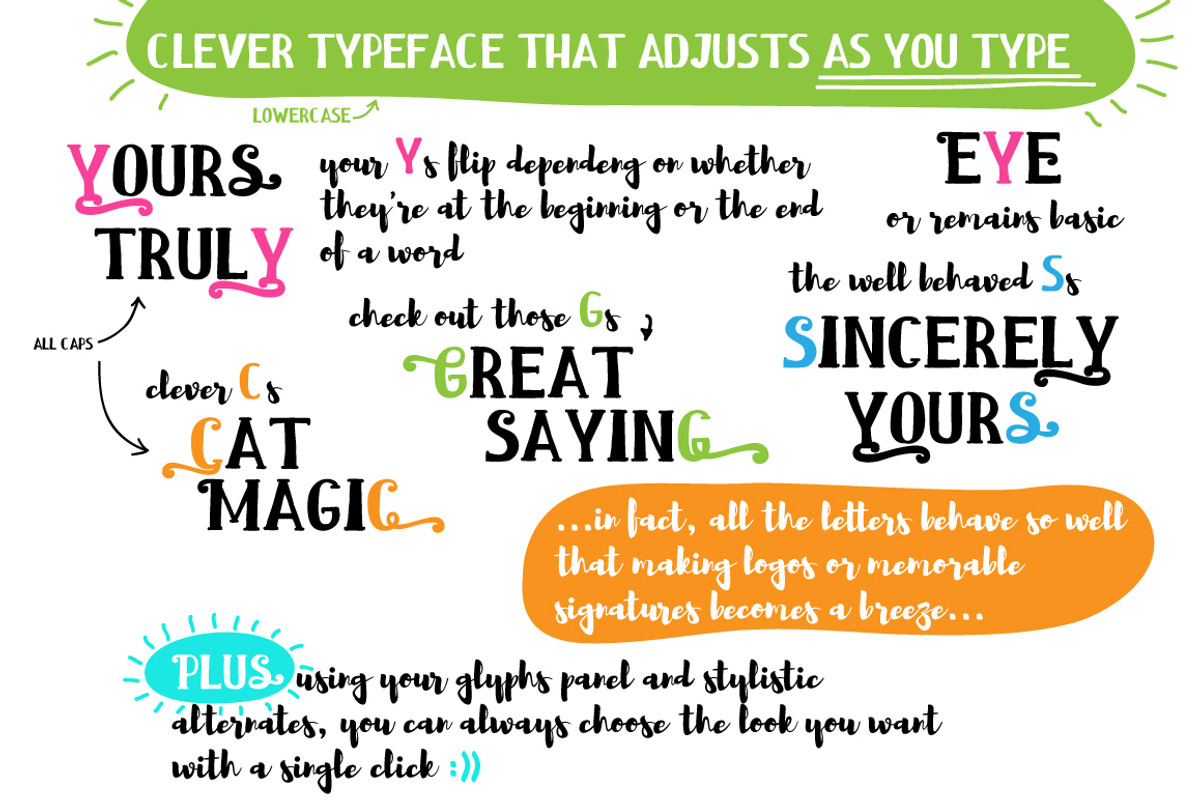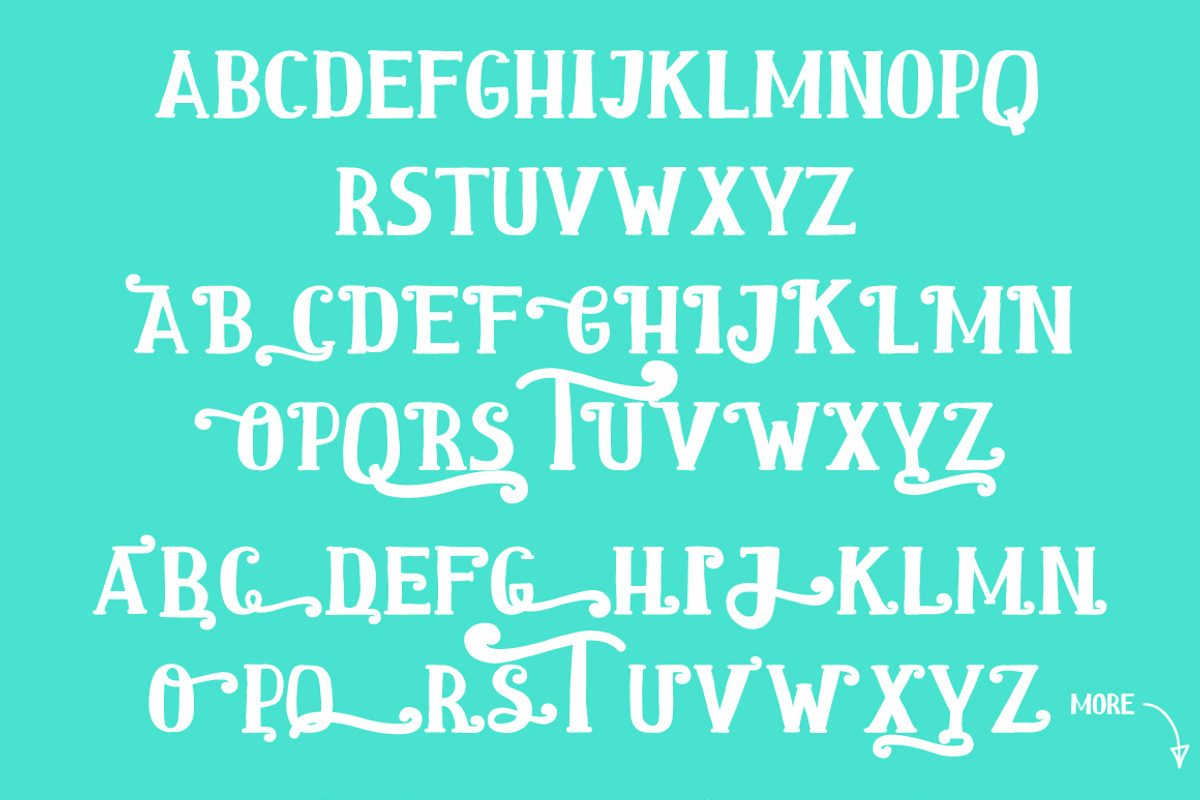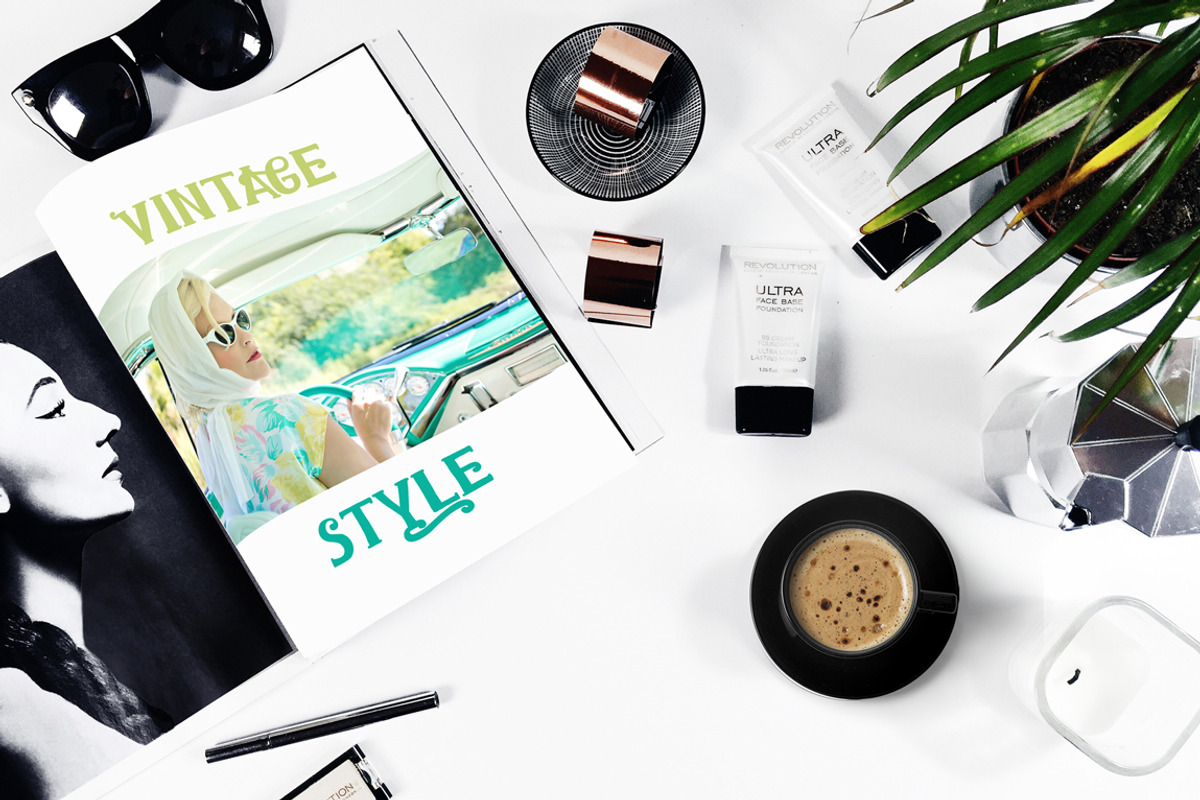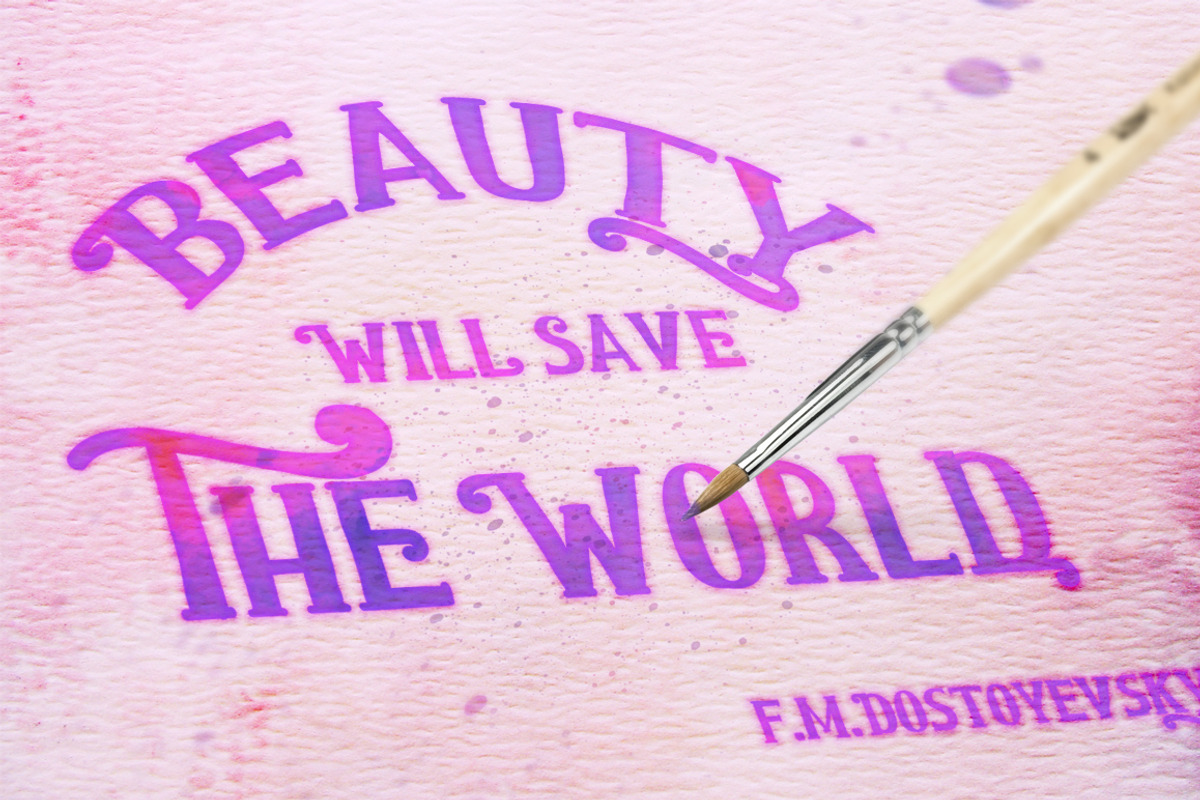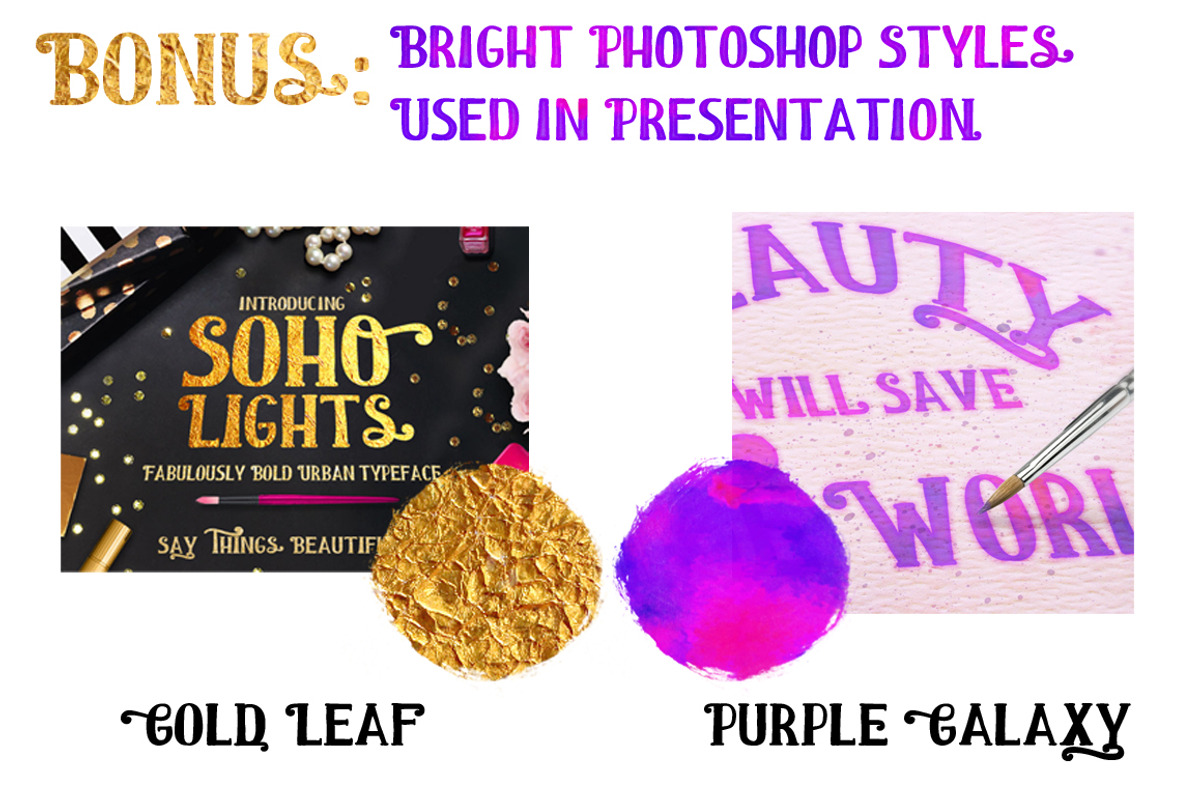
Soho Lights, City Slick Typeface
Soho Lights, City Slick Typeface by a Blond Moment is a font selected for branding, posters, packaging, typography.
- For starters, use my gold leaf and watercolor included in the pack and try Soho Lights with digital patterns and styles in your library for
- Type in all lowercase for your basic font, type in all uppercase to have Soho Lights add all the decorative features, or press shift key whe
Why Soho Lights, City Slick Typeface is worth a look
Soho Lights, City Slick Typeface by a Blond Moment fits naturally into Branding, posters, packaging, typography.